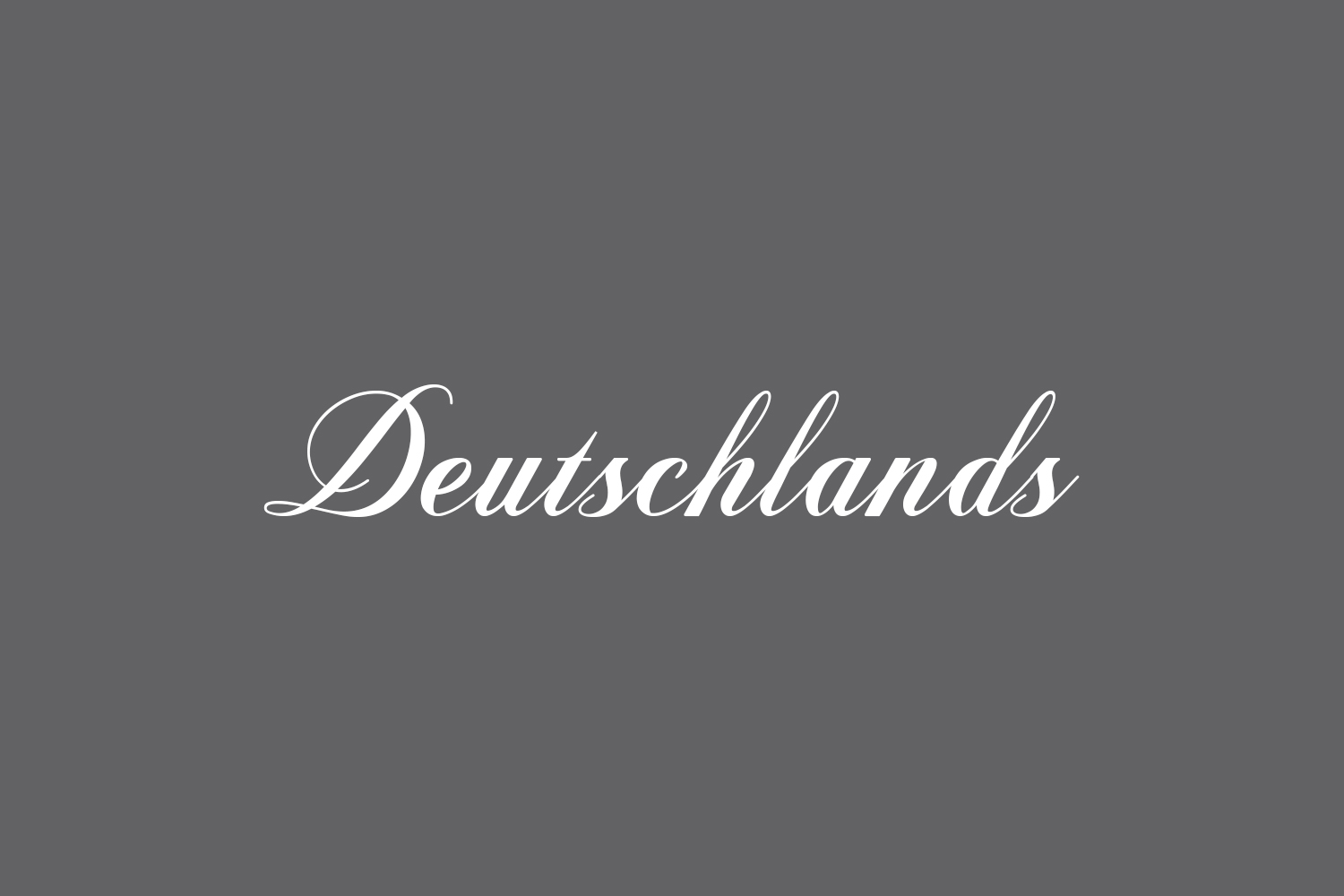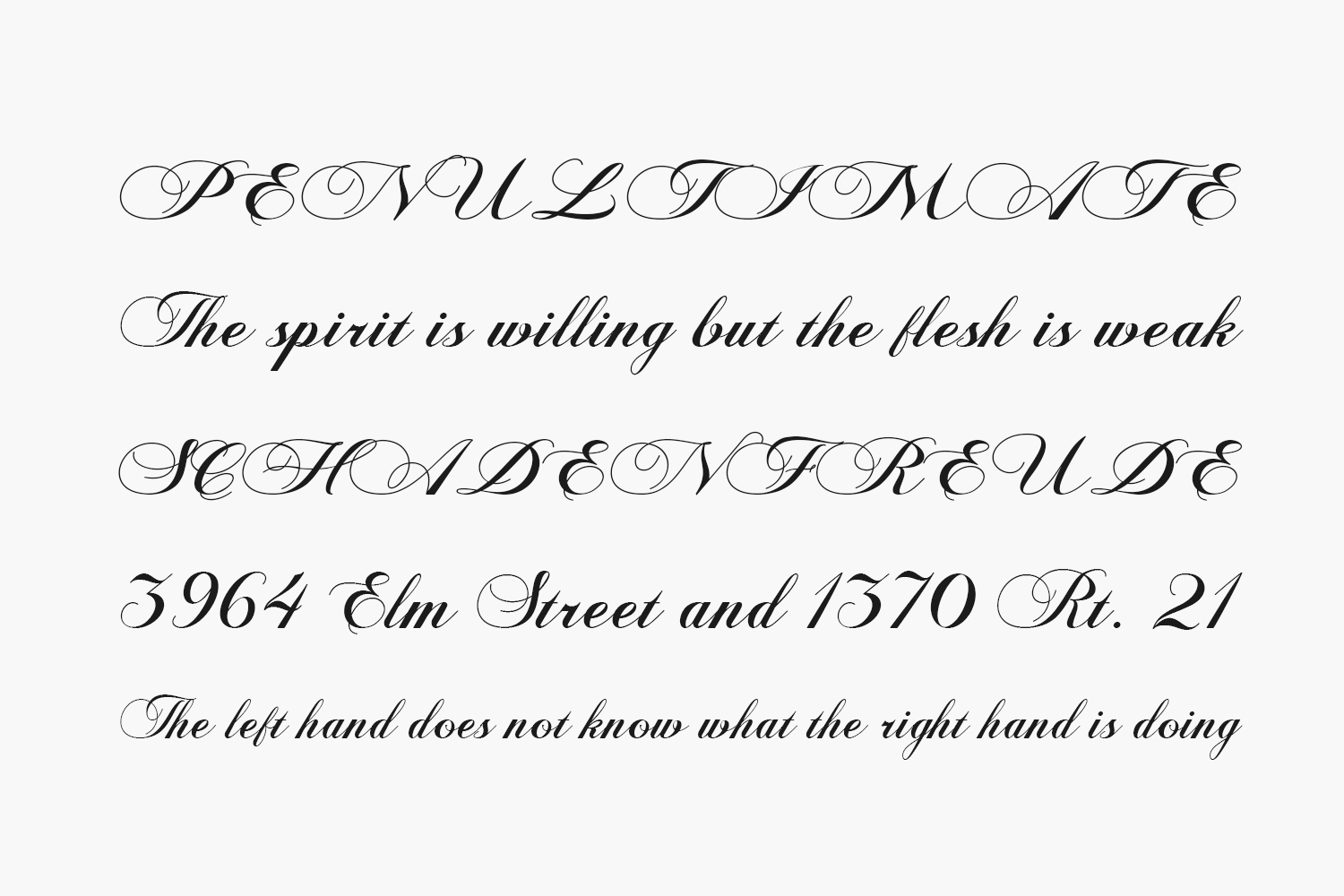
Deutschlands Free Font is made in a modern style, very casual, and suitable for your various design needs. It’s perfect for logos, branding, titles, social media posts, advertisements, product packaging, product designs, labels, photography, watermarks, special events, magazines, web design, etc. Download the font for free if you need it for personal use or purchase the full version for commercial use.